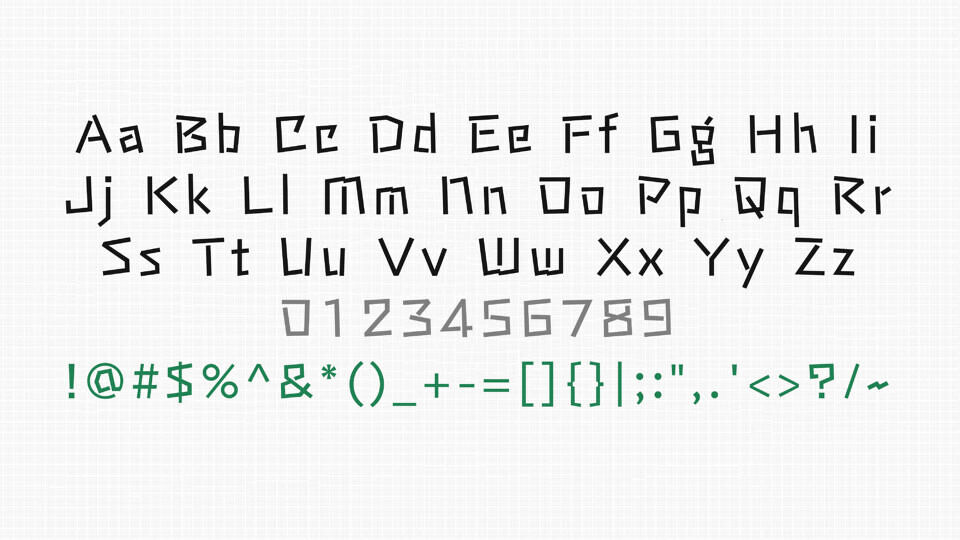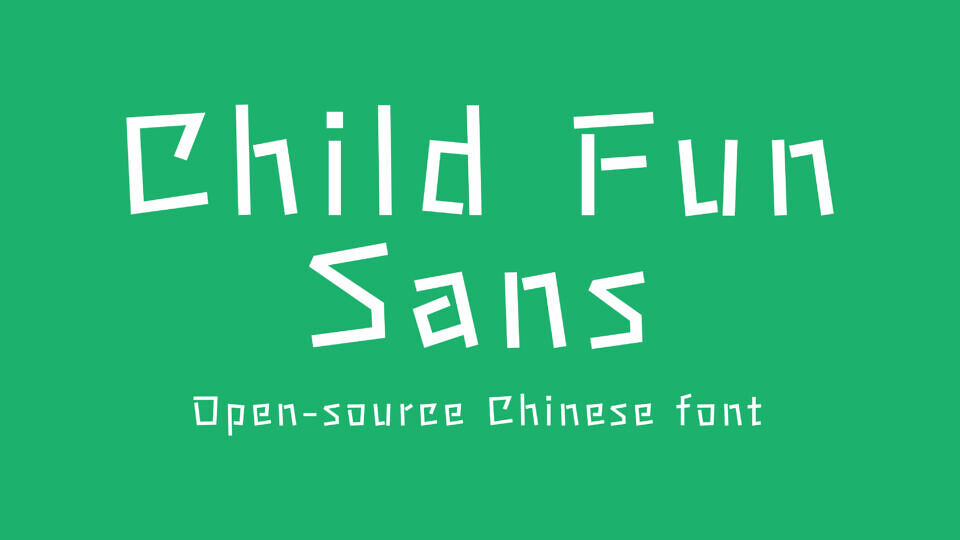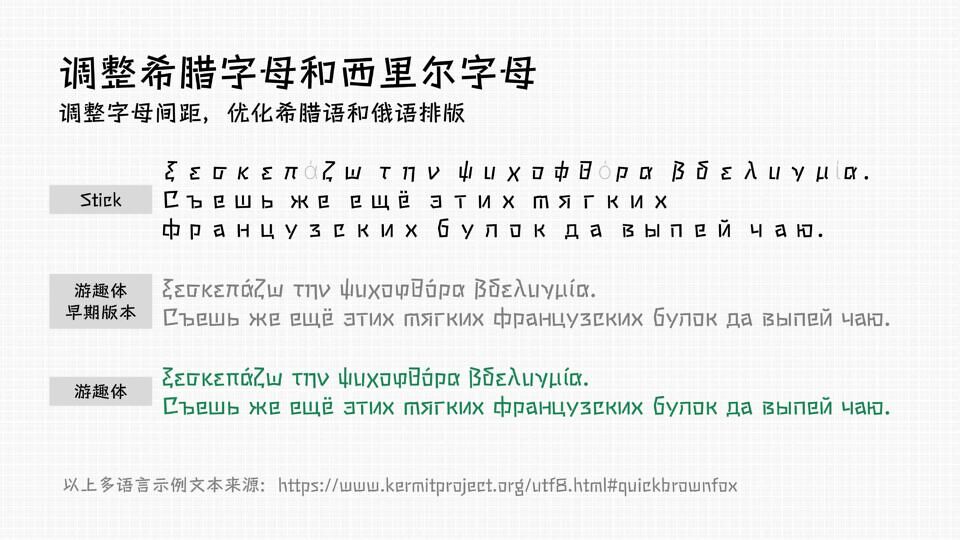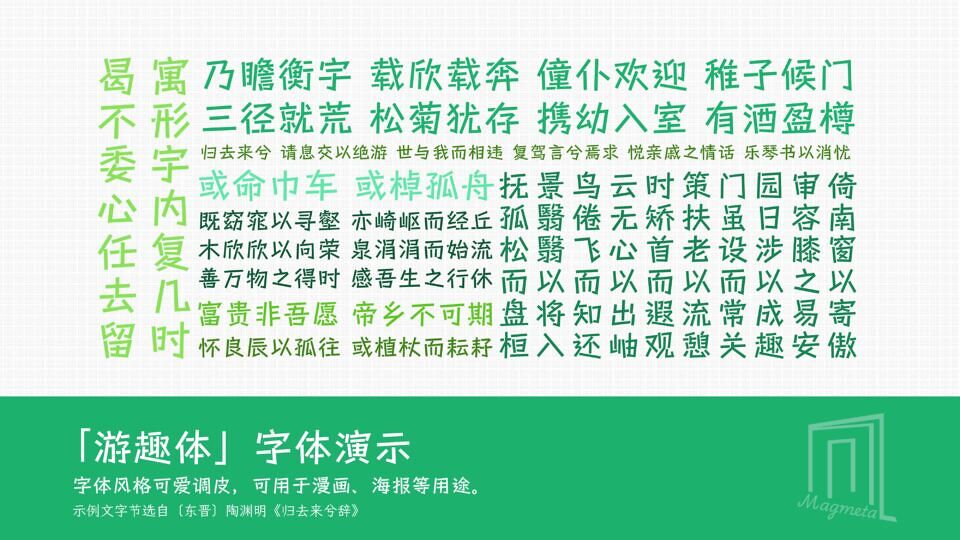
Child Fun Sans Font
Child Fun Sans is a playful, open-source sans-serif typeface with lively, simple letterforms that blend whimsical charm with clear readability. Its straight-lined, fun-loving shapes evoke youthful energy and creativity, making it perfect for children’s designs, educational content, posters, packaging, and playful branding.
With full support for Latin, CJK, and extended characters, this free font adds a cheerful, friendly vibe to web and print projects while staying clean and readable at any size.